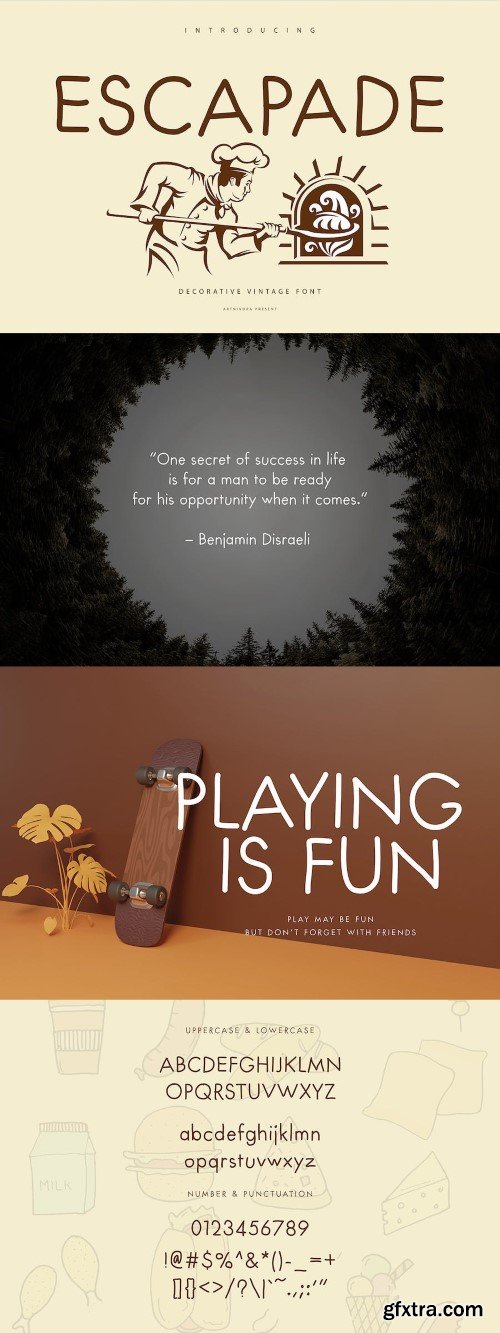
逃脱 - 装饰性复古字体
Introducing Escapade, a simple and decorative vintage font. So perfect for you who needs a typeface for logo designs, magazine, social media, brochure, and many more.
Features
- Uppercase
- Lowercase
- Punctuation
- Numerals